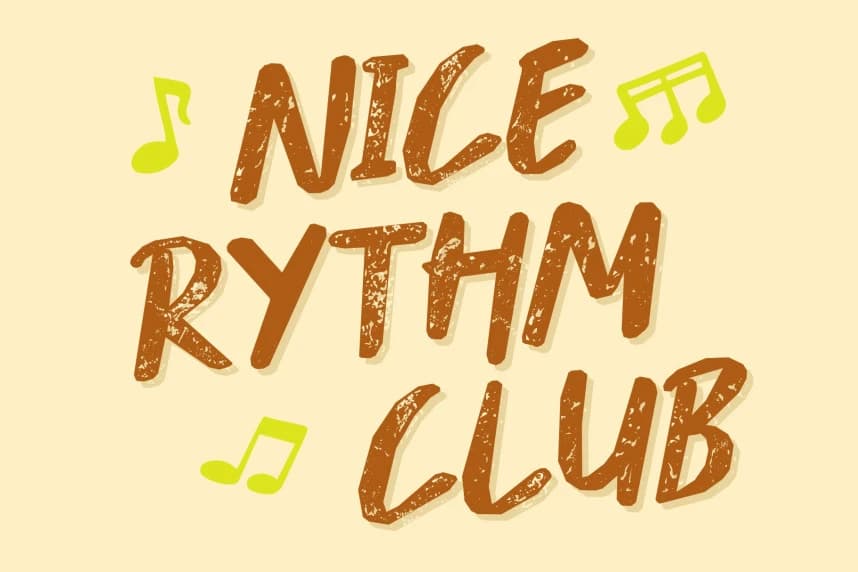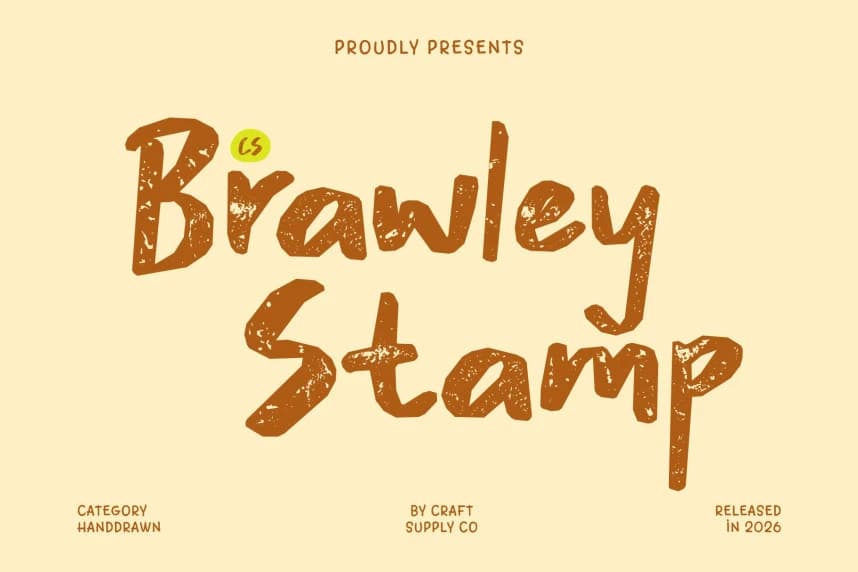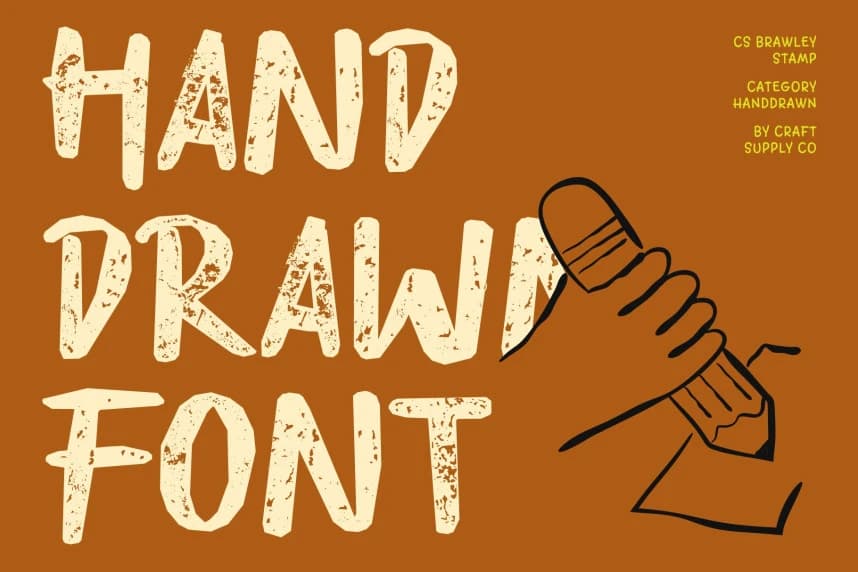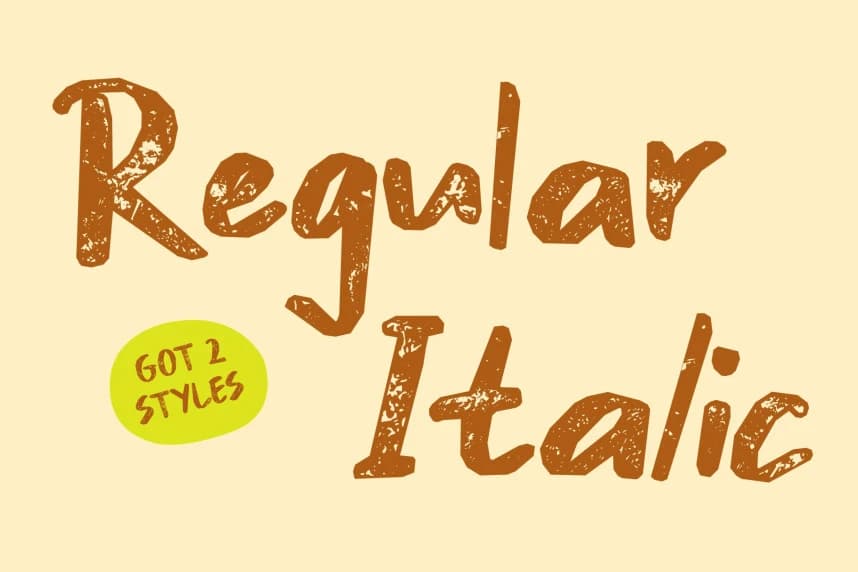
CS Brawley Stamp Font
CS Brawley Stamp Font – Bold Marker Style with Textured Impact Natural Sans Serif with a Stamped Marker Feel This enhances its marker-style sans serif foundation with a subtle stamped texture that intensifies its handcrafted personality.